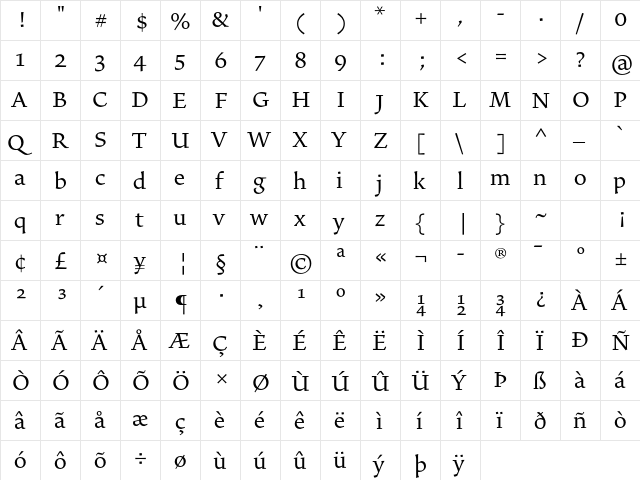
Alisal Std Regular
Design Context for Alisal Std Typeface
Alisal Std takes a measured approach to typography — its balanced proportions and neutral character make it a reliable workhorse for both digital and print work.